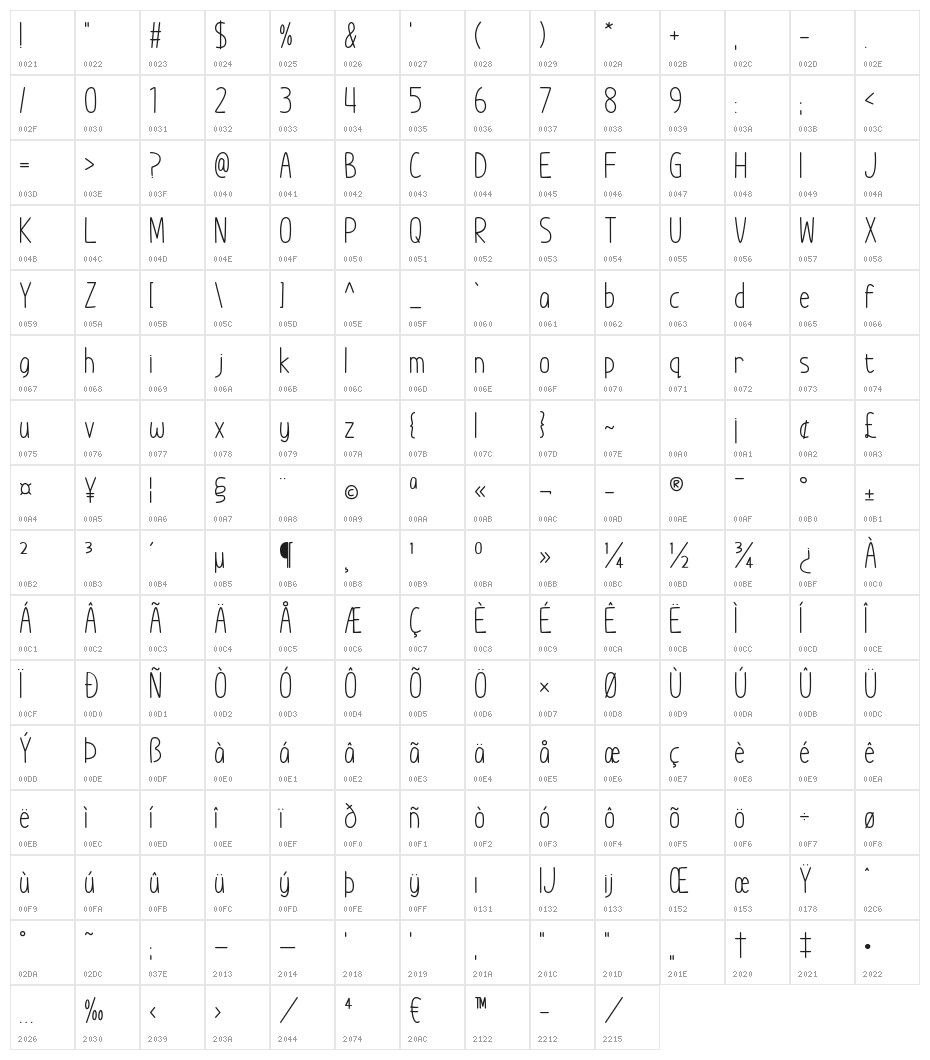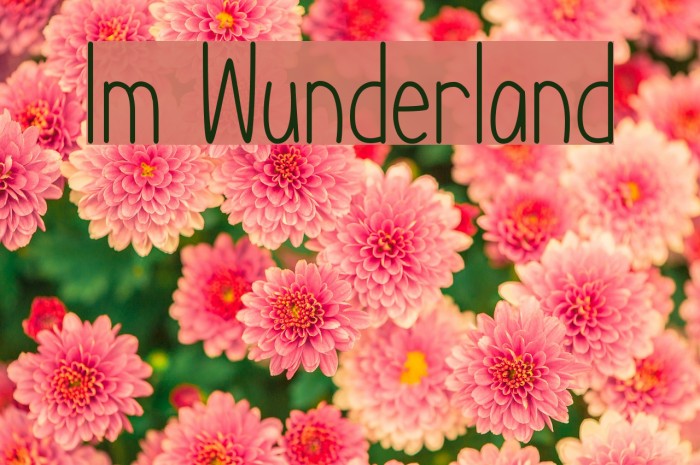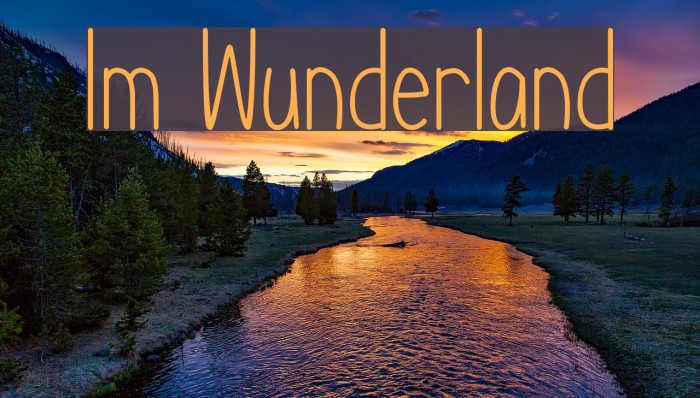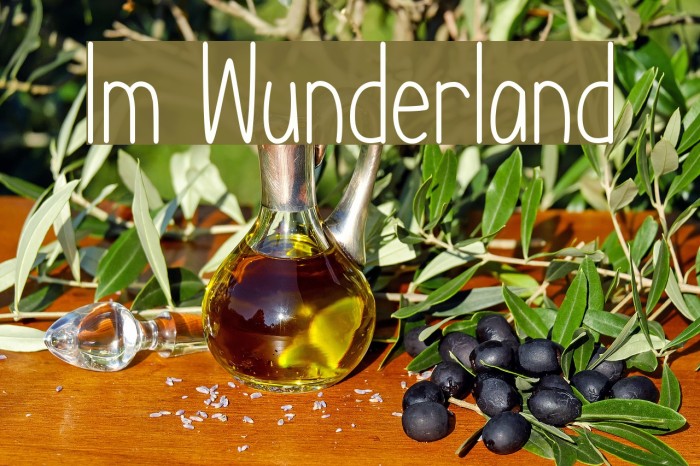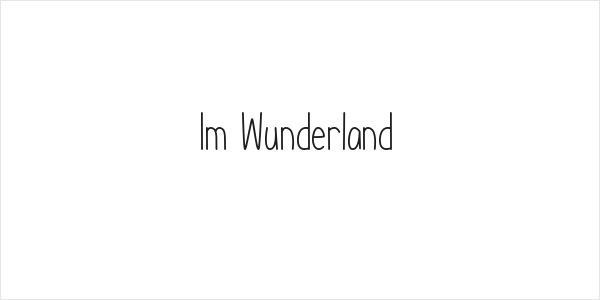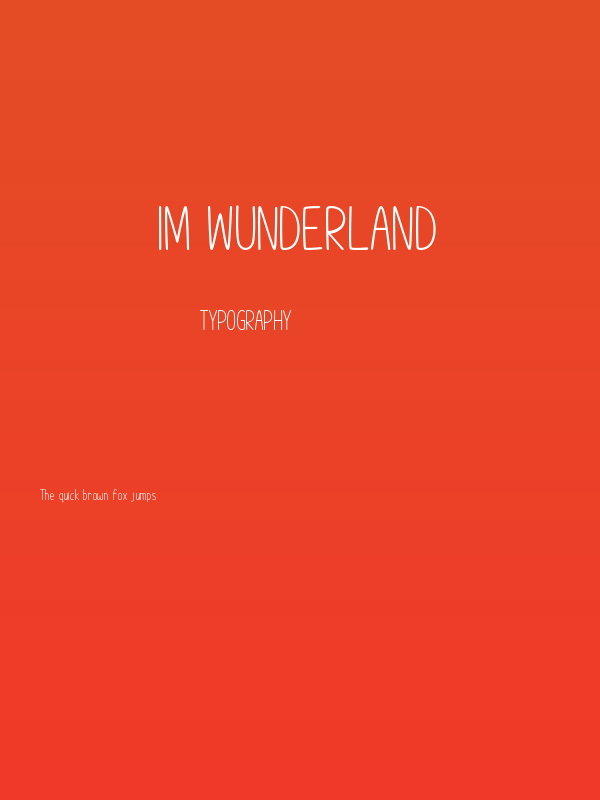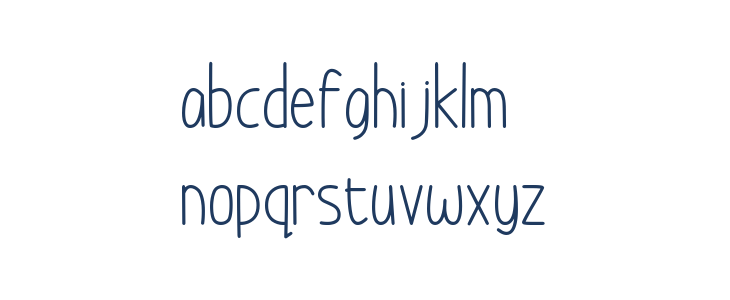
Im Wunderland Font
Im Wunderland Description
This font features a playful and whimsical style, characterized by its tall, narrow letterforms and slightly irregular strokes. The uppercase letters are uniform in height, while the lowercase letters maintain a consistent baseline with gentle curves. The numerals are straightforward and align well with the overall aesthetic. Special characters are crafted with the same playful touch, making them blend seamlessly with the rest of the font. The strokes are consistent in width, giving the font a clean and approachable appearance. Its unique charm makes it suitable for projects that require a friendly and informal tone.
Overall StylePlayful
Use CaseHeadlines, Logos, Informal Text
Proposed ProjectsIdeal for children's books, greeting cards, playful branding, and casual invitations.